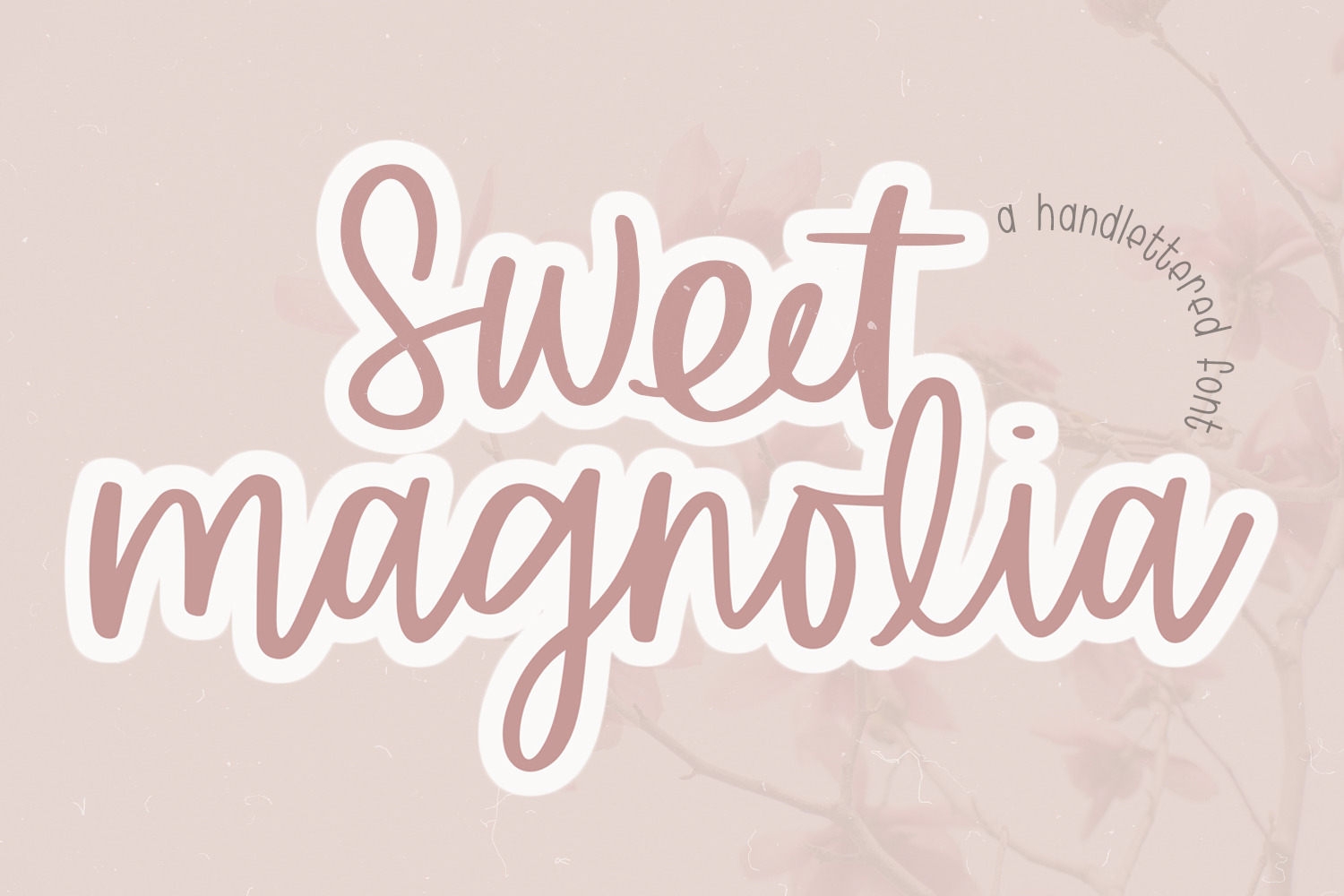
Sweet Magnolia Hand Lettered Font
This font is hand lettered! Use this fun & cute font for all of your creative needs! Making SVGs, graphic design projects, shirts, wood signs, cards, social media, stickers, blog posts, and much more! This is a smooth font - perfect for cut machines like Cricut and Silhouette!